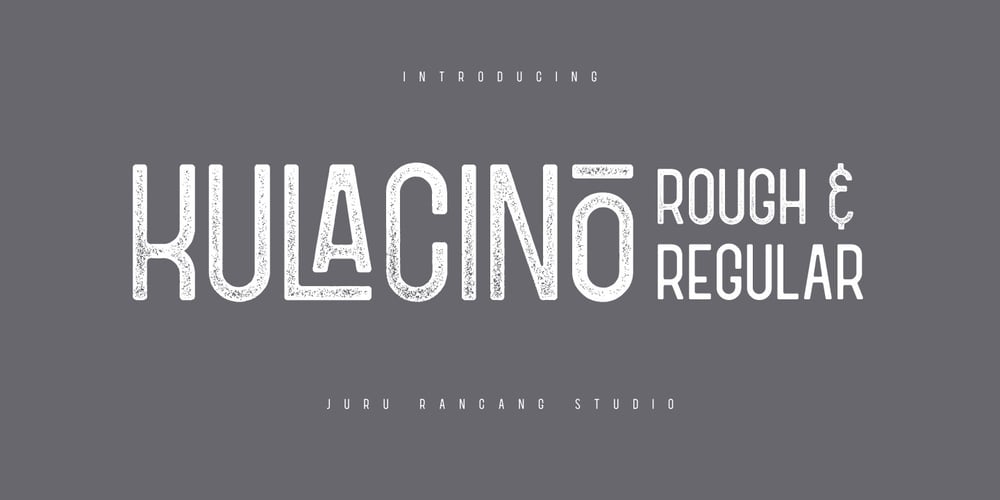
Kulacino Font Family was designed by Ihsan Khairul Lazuardi and published by Juru Rancang Studio. Kulacino contains 2 styles and family package options. Introducing Kulacino – a modern-retro display typeface infused with the timeless charm of old-time factory signages and plate licenses. Its seemingly rigid form is softened by gentle, rounded corners and delicate notched details, adding a touch of sophistication to every glyph. With Kulacino, your creative possibilities are limitless. Elevate any project with its unique character and vintage flair!